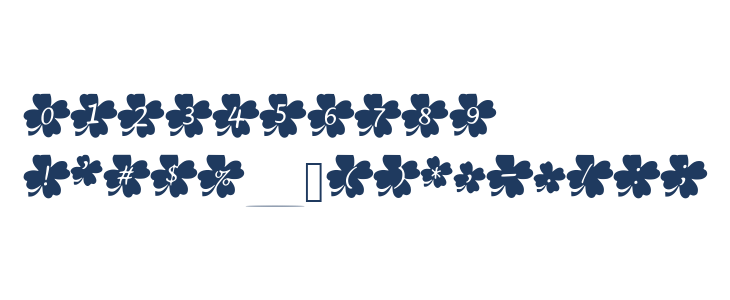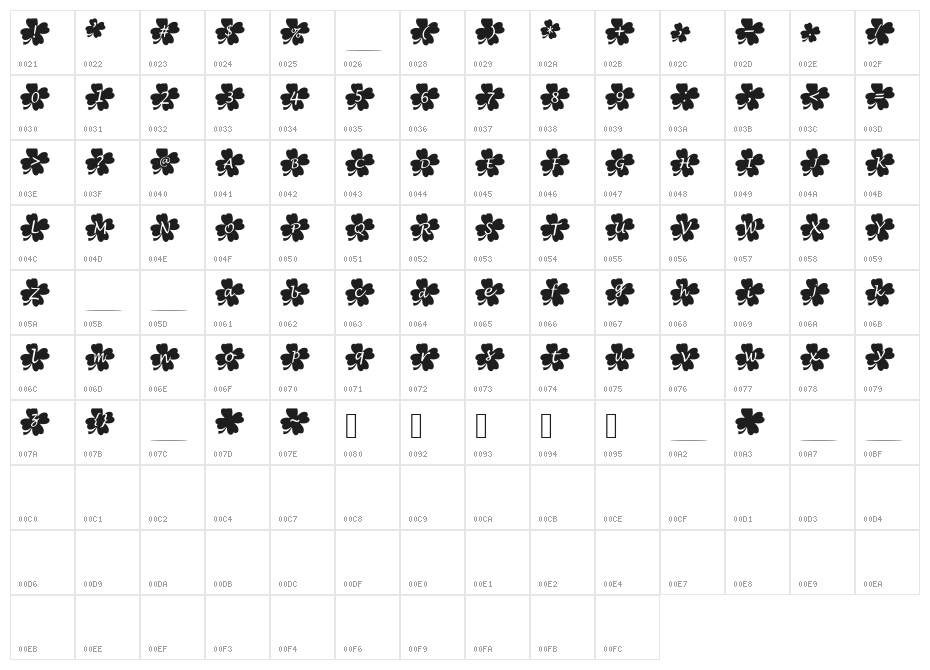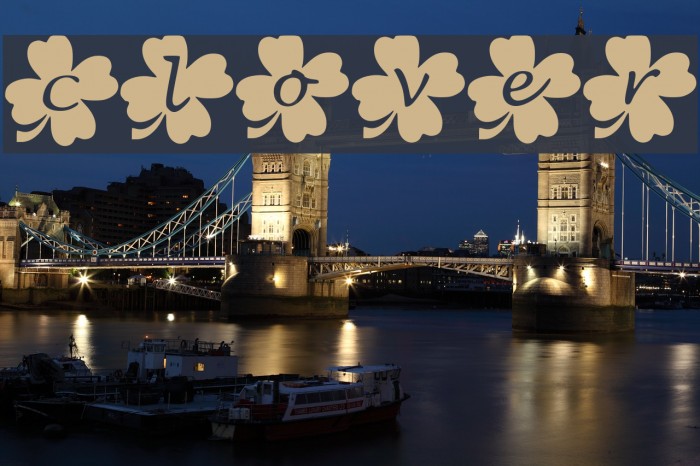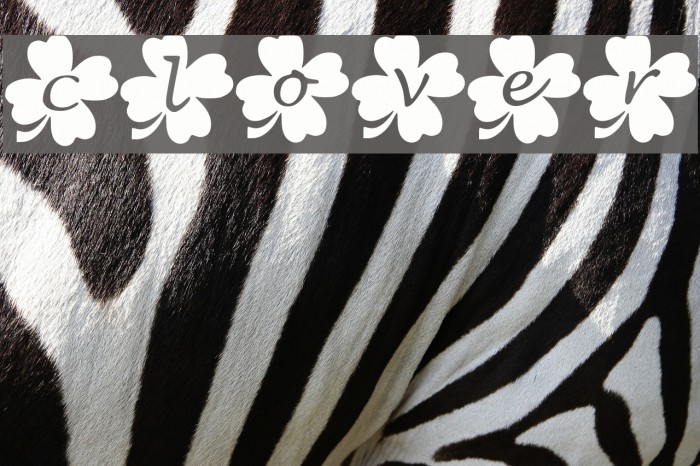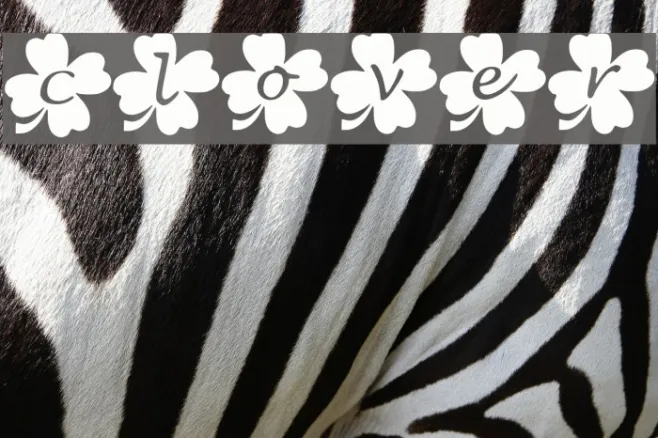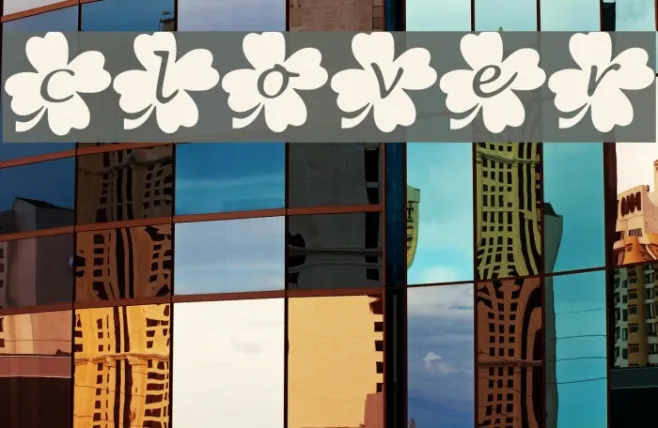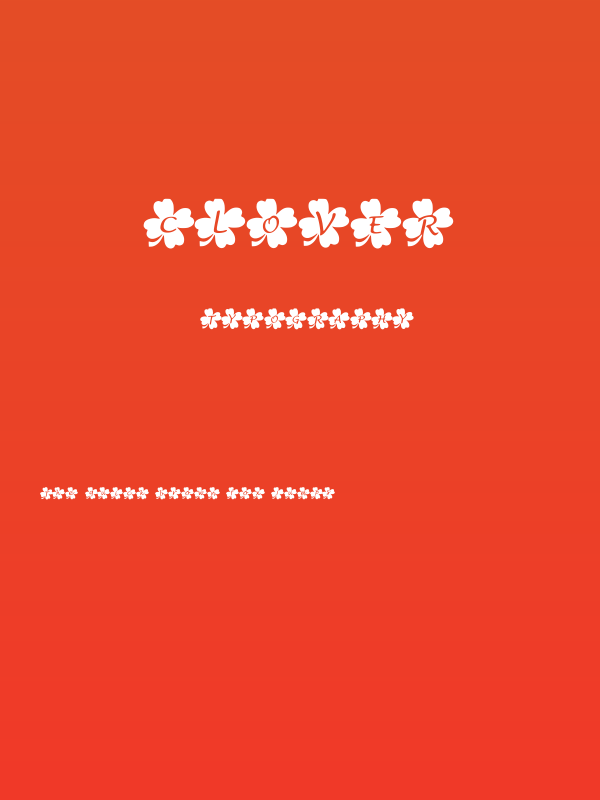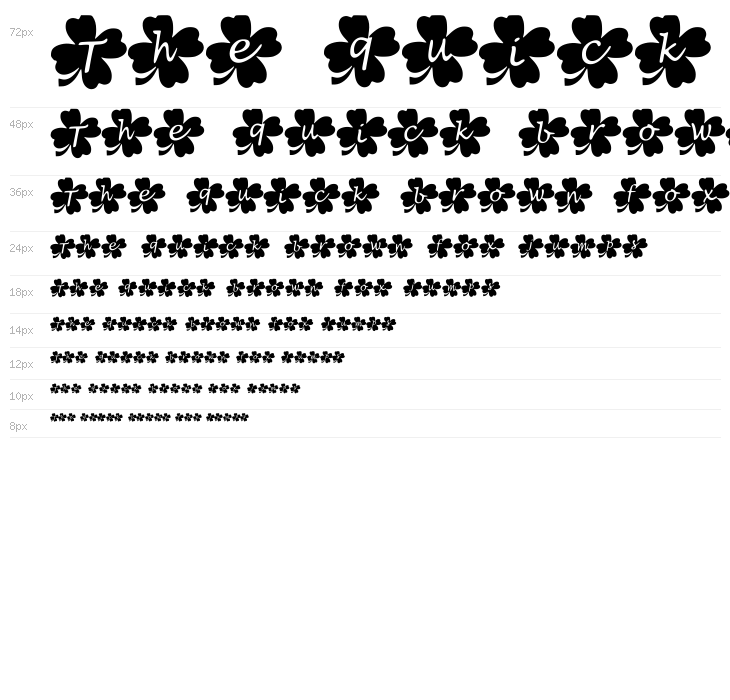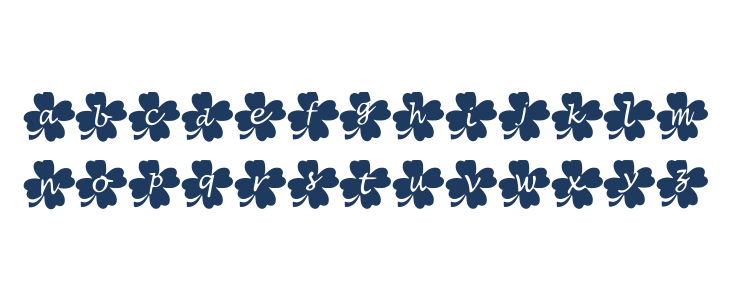
Clover Font
Clover Description
This unique and playful font features each character nestled within a four-leaf clover silhouette, creating a whimsical and decorative appearance. The letters are elegantly styled with a script-like quality, adding a touch of sophistication to the playful design. The boldness of the clover shapes contrasts with the delicate strokes of the letters, making each character stand out distinctly. This font is perfect for projects that require a fun, festive, or nature-inspired theme. The consistent use of clover shapes provides a cohesive look across all characters, including numbers and special symbols.
| Proposed Projects | Ideal for St. Patrick's Day promotions, greeting cards, festive invitations, or nature-themed branding. |